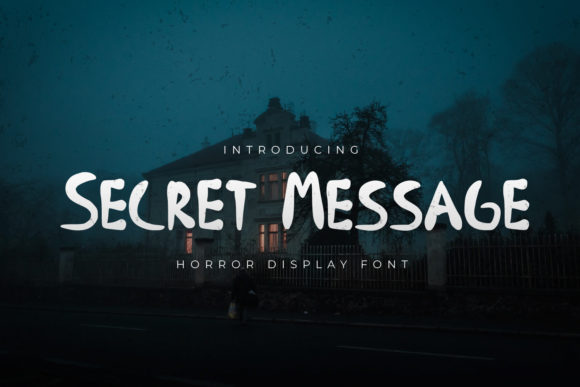
Get ready for a spooky type adventure with our Secret Message font! This eerie and enchanting font is perfect for conjuring up a chilling atmosphere in your designs. Whether you're creating haunting Halloween posters, spine-tingling movie titles, or spine-chilling book covers, Secret Message will add a touch of the macabre that's sure to send shivers down your spine.
But don't be fooled by its spooky appearance, Secret Message is also incredibly versatile. Its playful and expressive nature makes it perfect for adding a touch of whimsy to any design, from whimsical invitations to eye-catching social media posts. So whether you're looking to create something that's downright terrifying or simply want to add a touch of eerie elegance to your projects, Secret Message is the perfect choice.